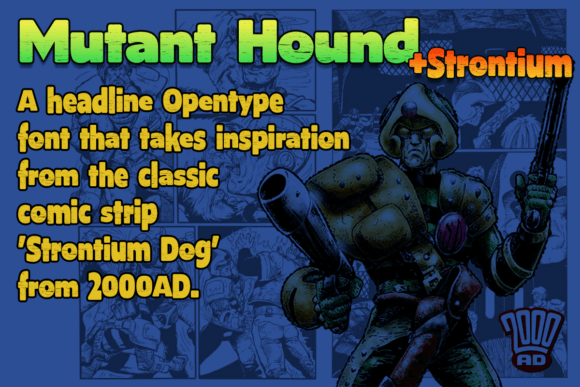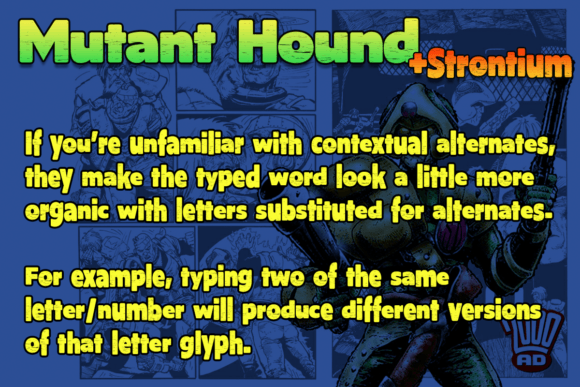
Introduction to Mutant Hound Font
Have you ever stared at a blank page, trying to spark the perfect idea for a creative project? The blank slate can be intimidating, but sometimes it’s exactly what we need to get our imagination flowing. For designers, finding the right design resource can make all the difference between a mediocre project and a truly memorable one. And that’s where the Mutant Hound Font comes in.
This retro display font is a masterclass in nostalgic design, transporting you back to the vibrant world of classic superhero comics. With its bold, chunky letters and fun halftone textures, the Mutant Hound Font is the perfect tool for adding a touch of vintage flair to your designs. Whether you’re working on a poster, packaging, or any other project that needs a high-quality, eye-catching font, the Mutant Hound Font is sure to deliver.
- Unique, hand-drawn design perfect for creative projects and designs that require a bold, playful touch.
- Includes 100+ glyphs and characters, including uppercase and lowercase letters, numbers, and special characters.
Honest Review: Mutant Hound Font
I recently came across the Mutant Hound Font, and I must say it’s an interesting addition to any design project. This font is perfect for creating a bold, futuristic look in your creative project.
- ✨ High quality design that stands out in digital formats.
- ✨ Great for titles and headings due to its large and bold nature.
- ⚠️ Limited font weights and styles available.
Overall, the Mutant Hound Font is a solid design resource for those who want to add a futuristic twist to their work. While it may not be the most versatile font, it’s perfect for specific creative projects that require a bold, high-quality font with a free download option.
As a designer, I appreciate the Mutant Hound Font for its unique look and high quality design. With some limitations in mind, it’s definitely worth considering for your next design project.
The Mutant Hound Font is a unique and versatile design resource perfect for creative projects. This high-quality font offers a transparent background, making it ideal for digital use.